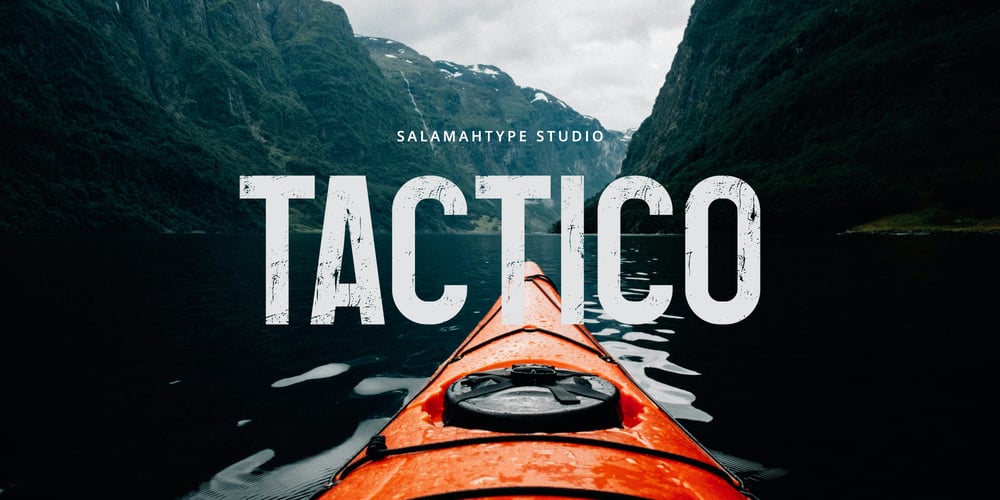
Tactico Font Family was designed by Aswangga Sadike and published by Salamahtype. Tactico contains 4 styles and family package options. Tactico Regular Bold Grunge and Slant.Tactico is a cool all caps sans serif font, with several bonus variations that you can get at once, namely regular, bold, and grunge/distressed style. This font is perfect for logos, branding projects, posters, magazines, news, social media, product packaging, and more.Features : Simple installations Fully accessible without additional design software Accessible in Adobe Illustrator, Adobe Photoshop, Adobe InDesign, even work on Microsoft Word. Uppercase and Multilingual Glyphs.